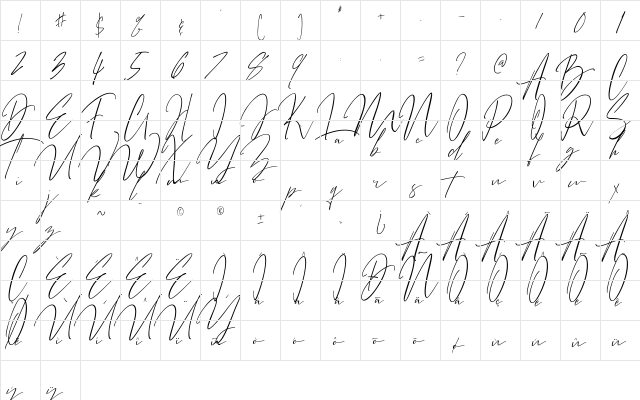
Bitter Mind Regular
Design Context for Bitter Mind Typeface
Bitter Mind is a composed and adaptable typeface that performs quietly and consistently across a wide range of design contexts.